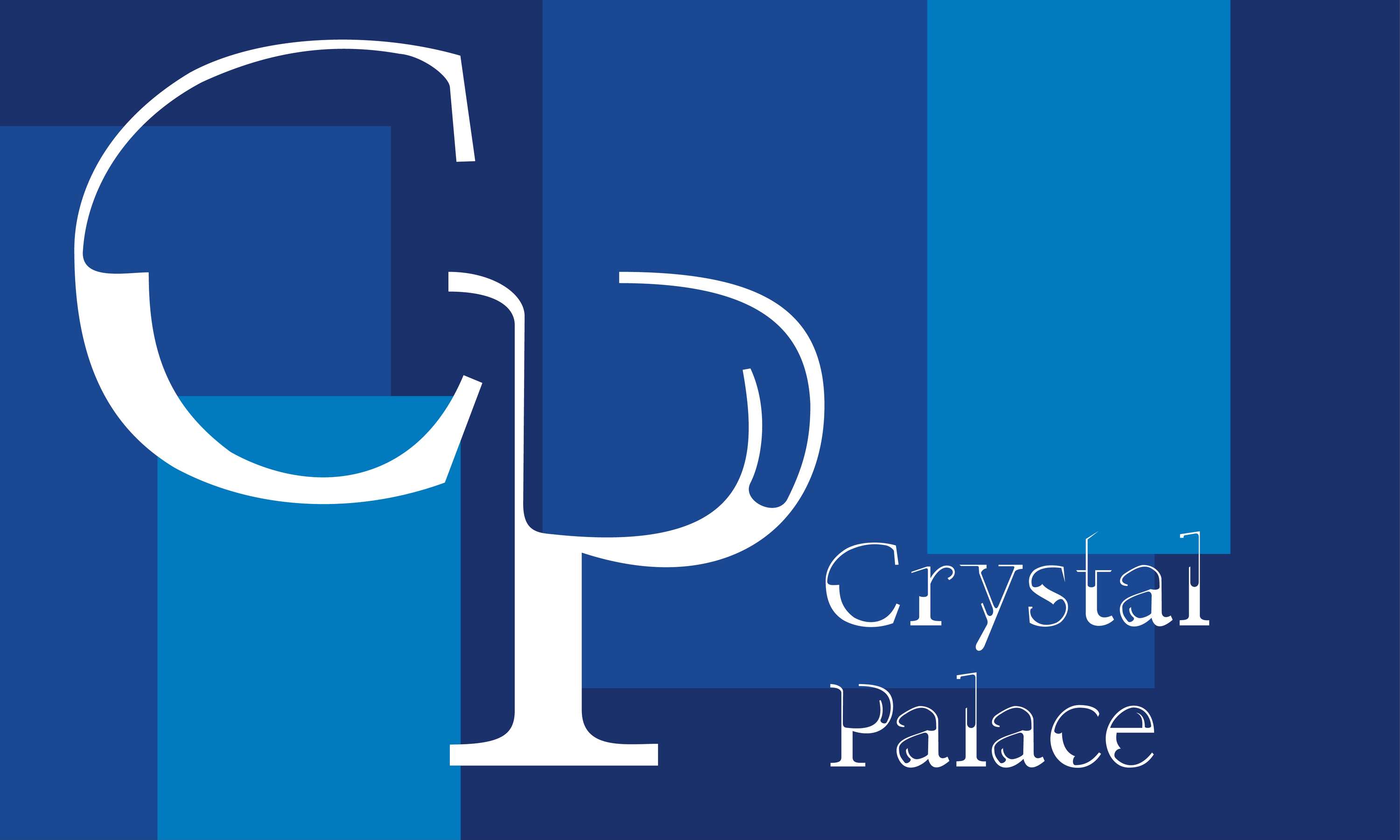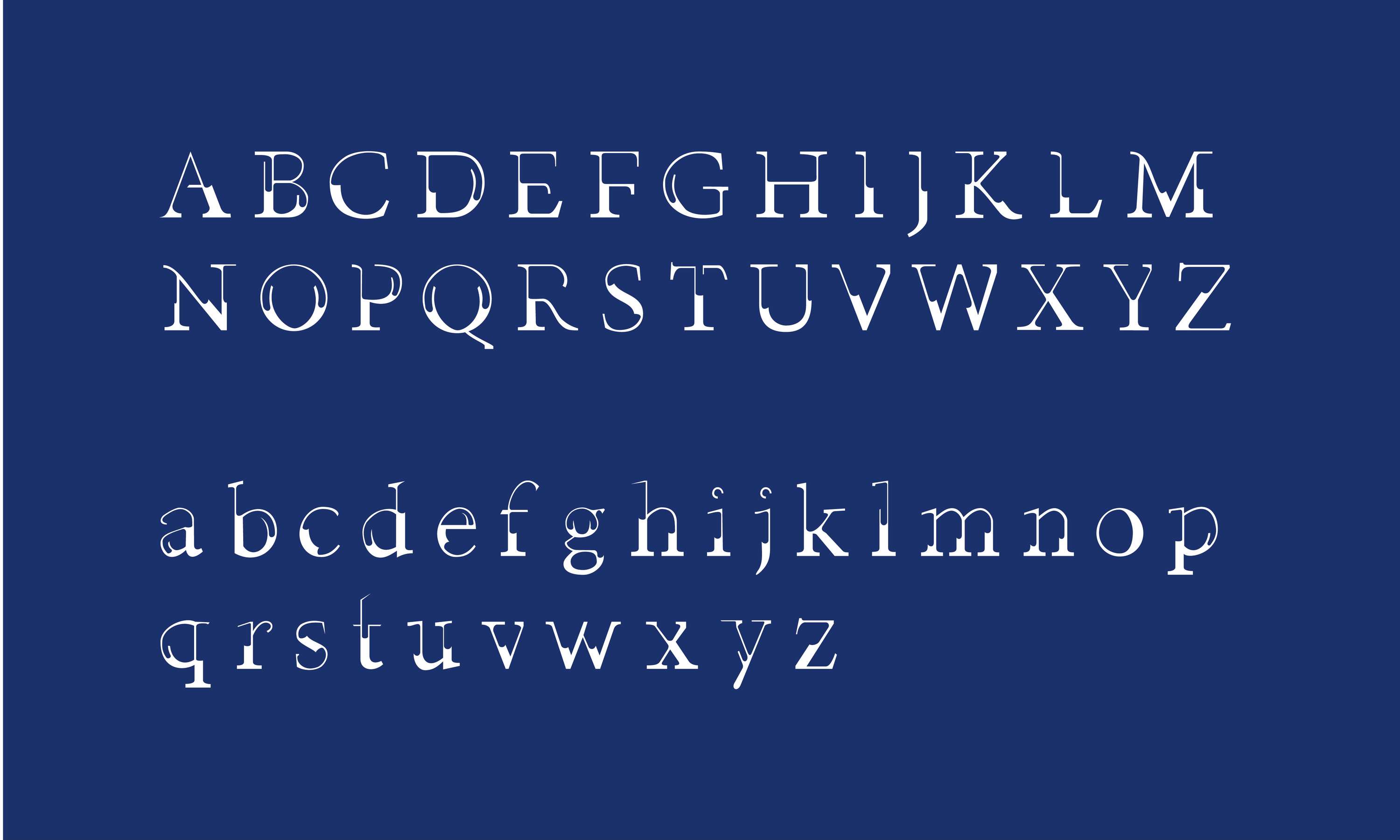
Crystal Palace Font
Crystal Palace is a font I designed in second year of university inspired by the famous Crystal Palace building. It uses negative space to reflect the fact that only the foundations of the building still stand while the rest is ghostly, only remembered through stories and archives.